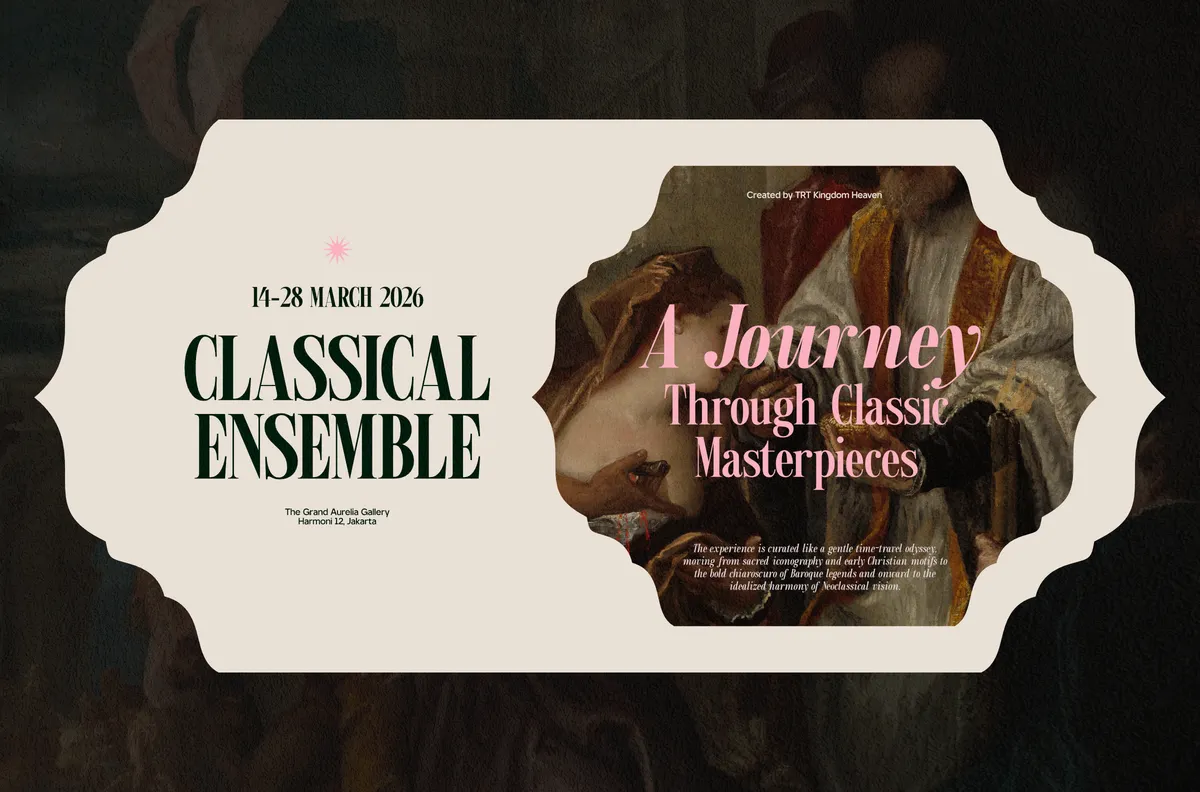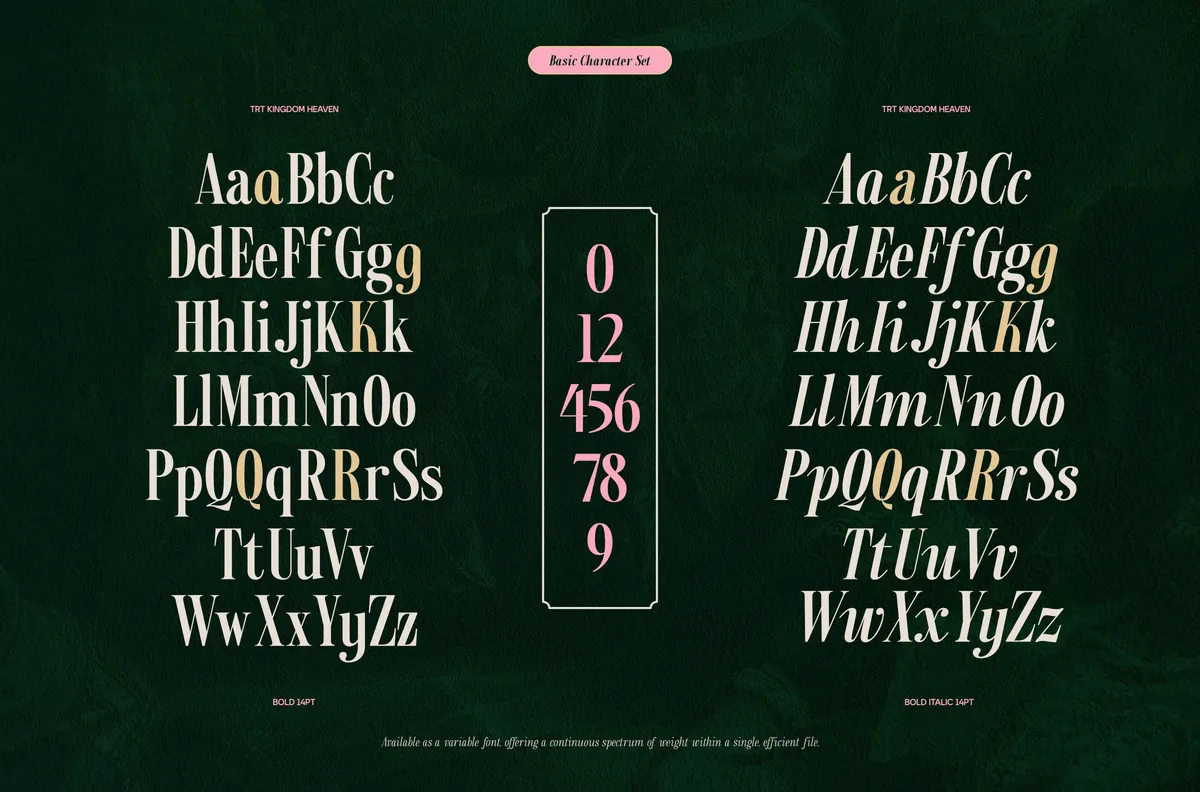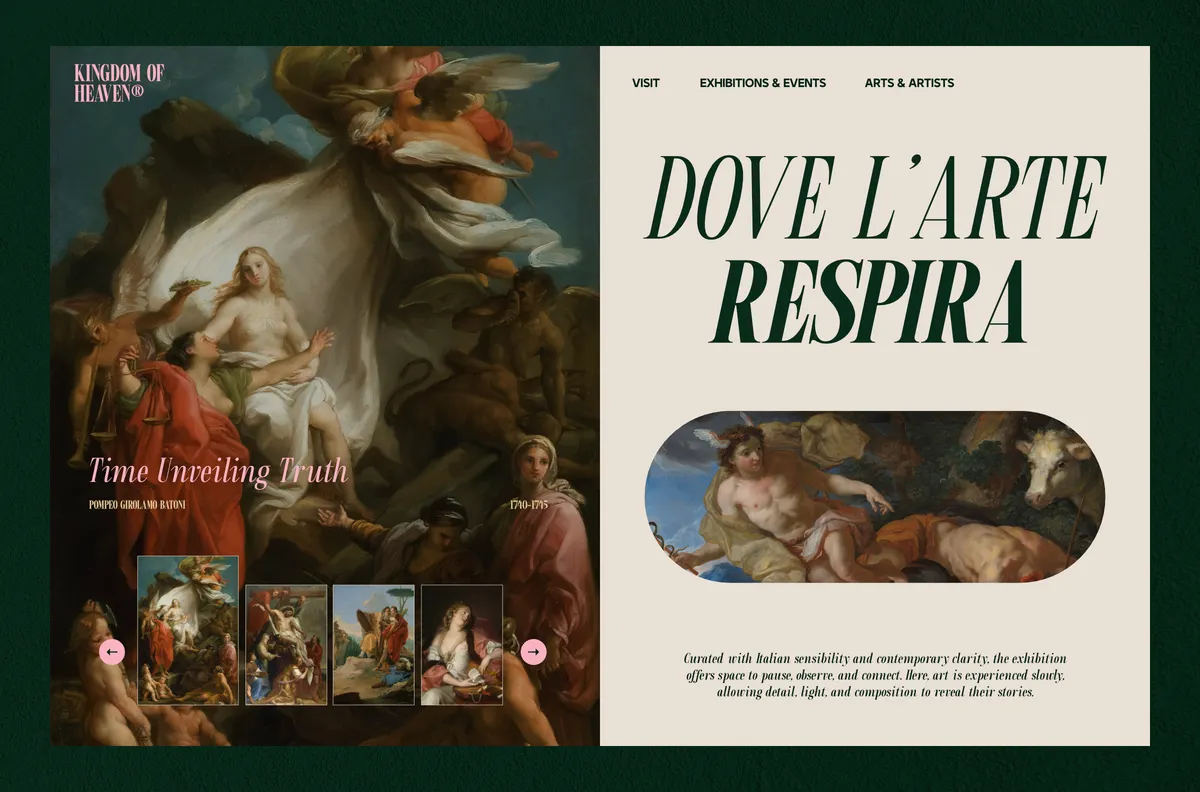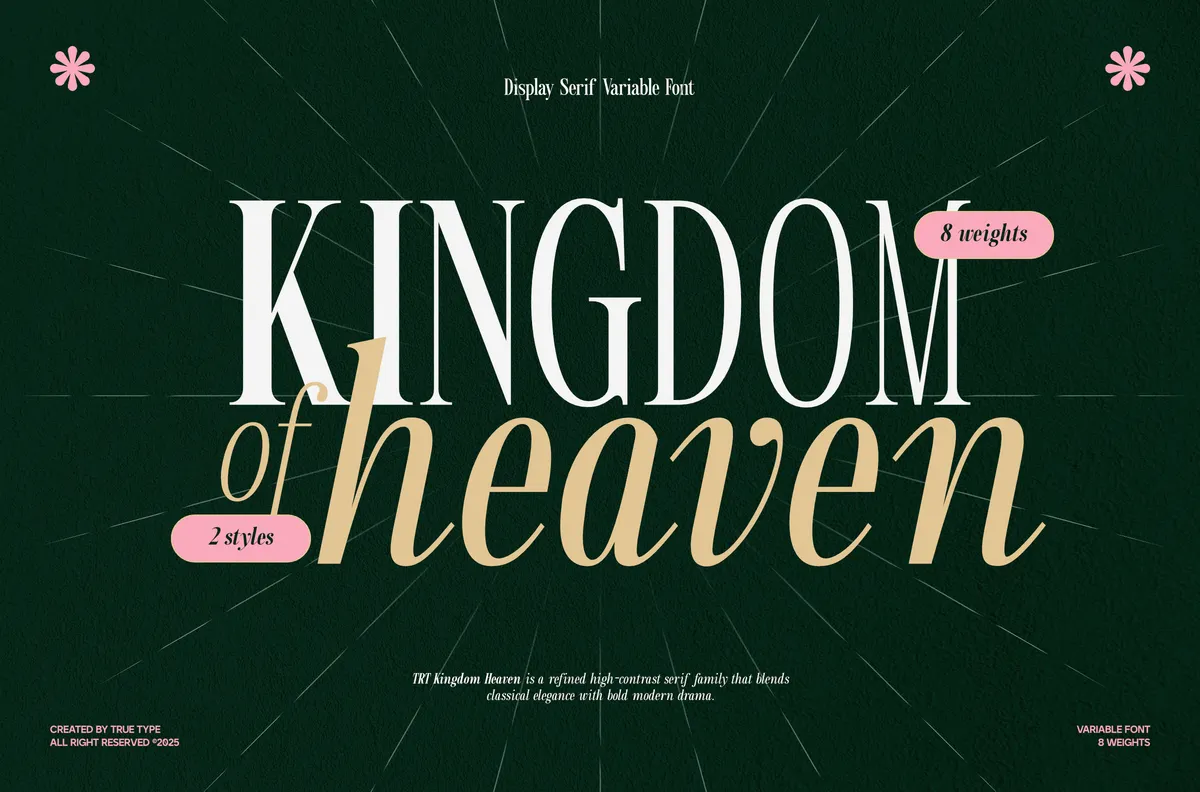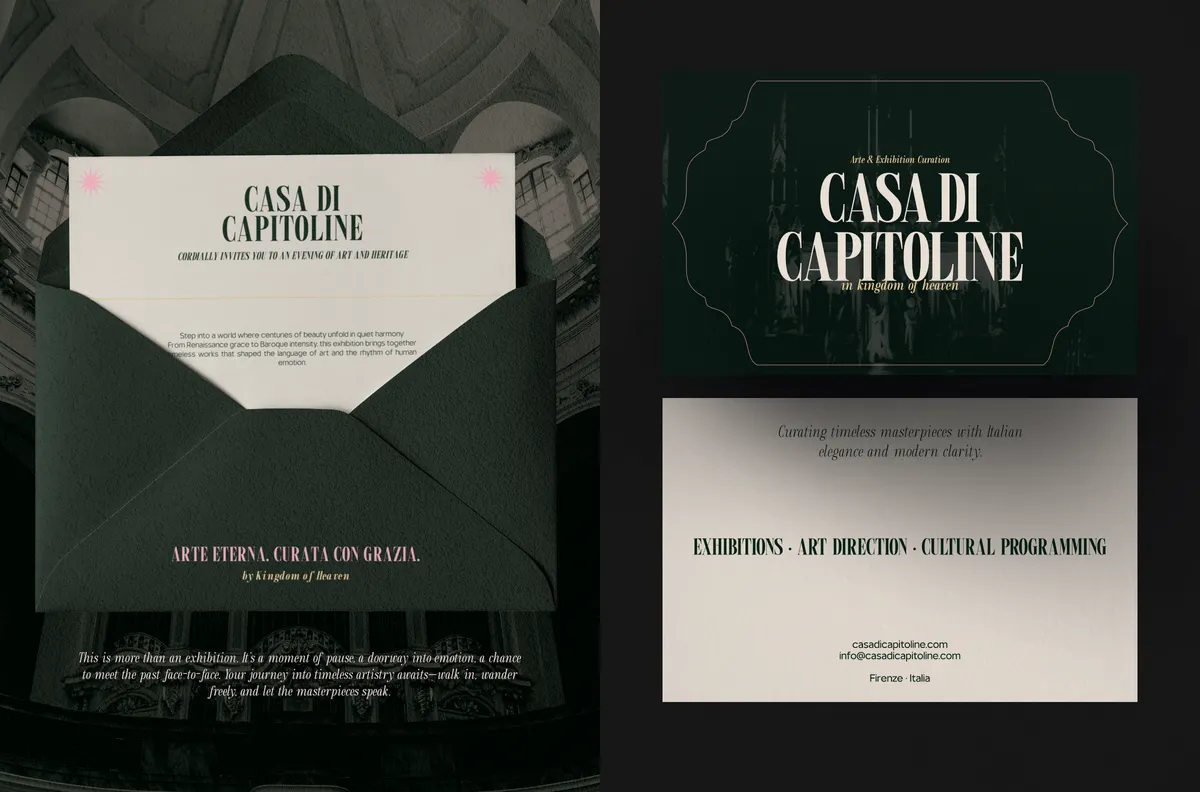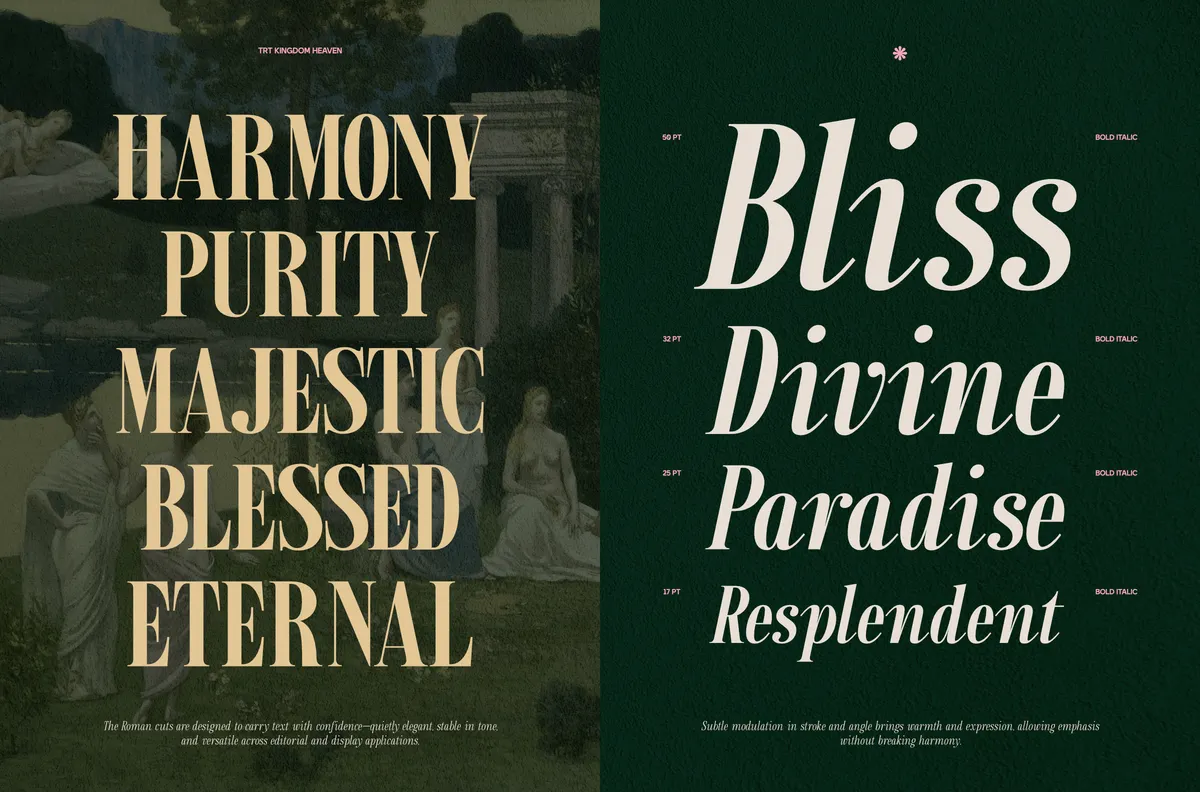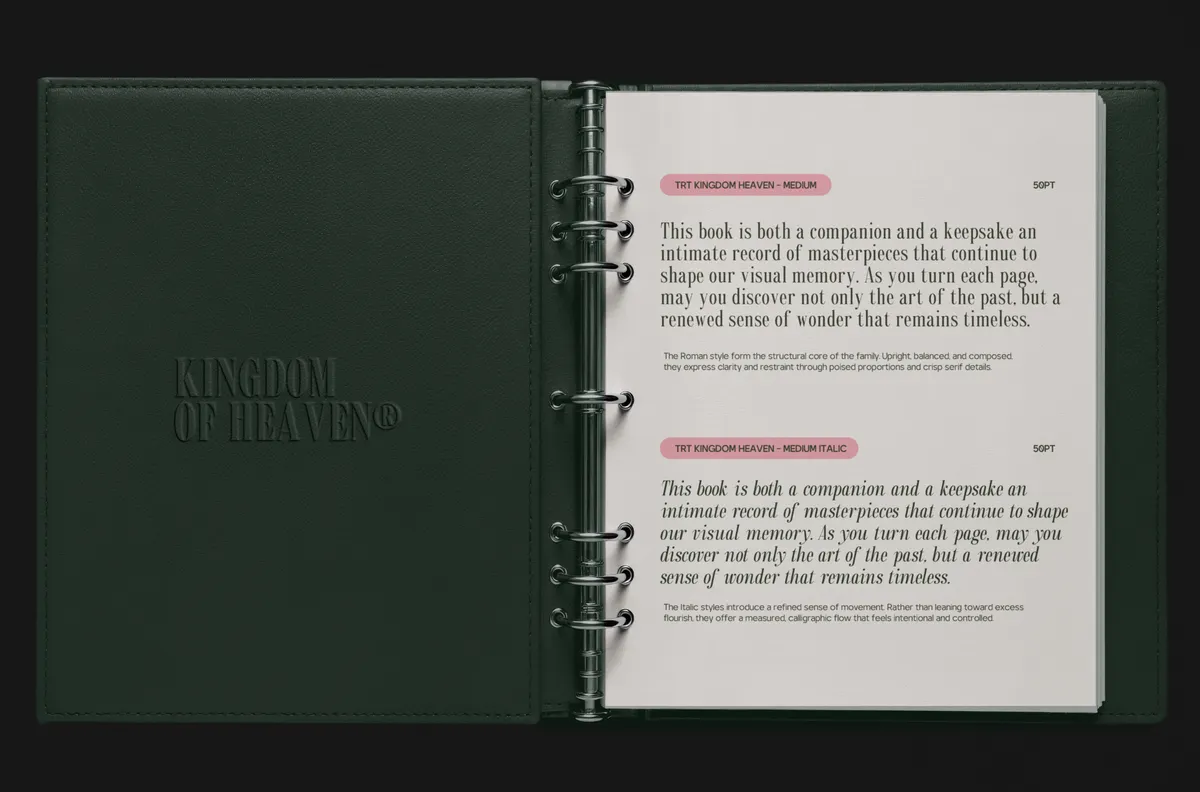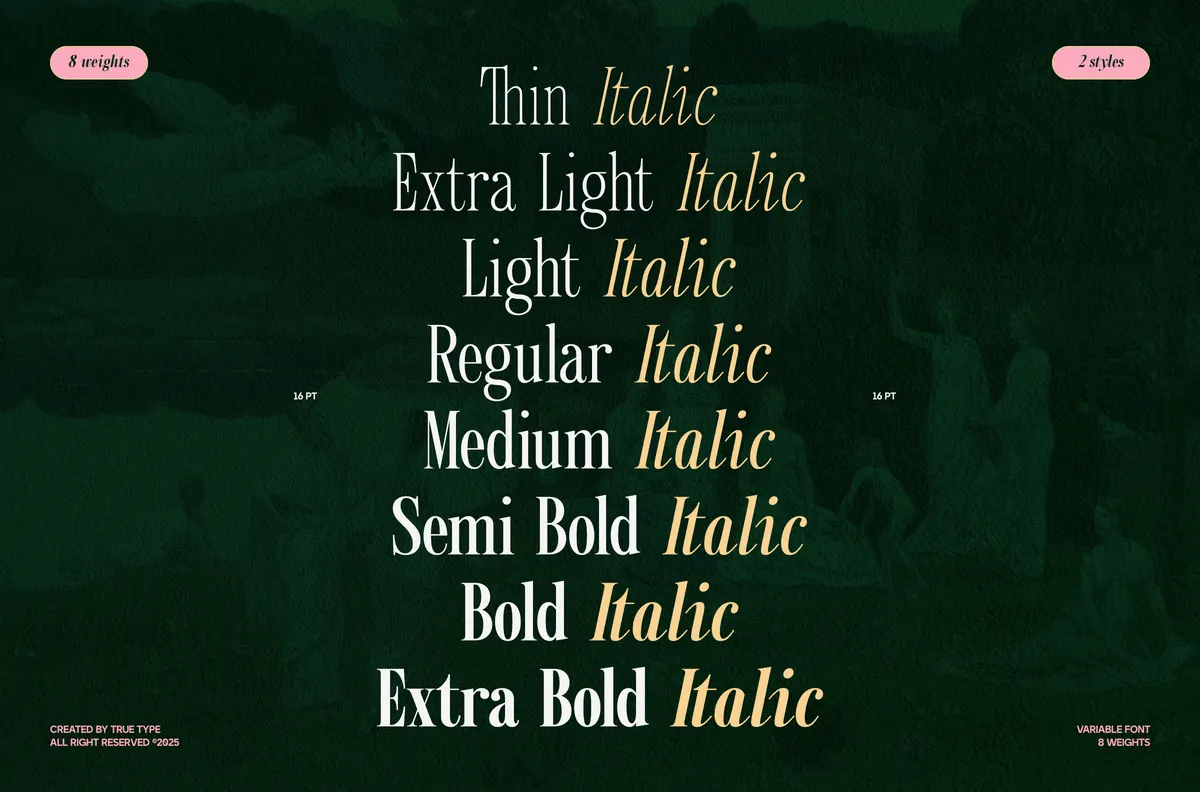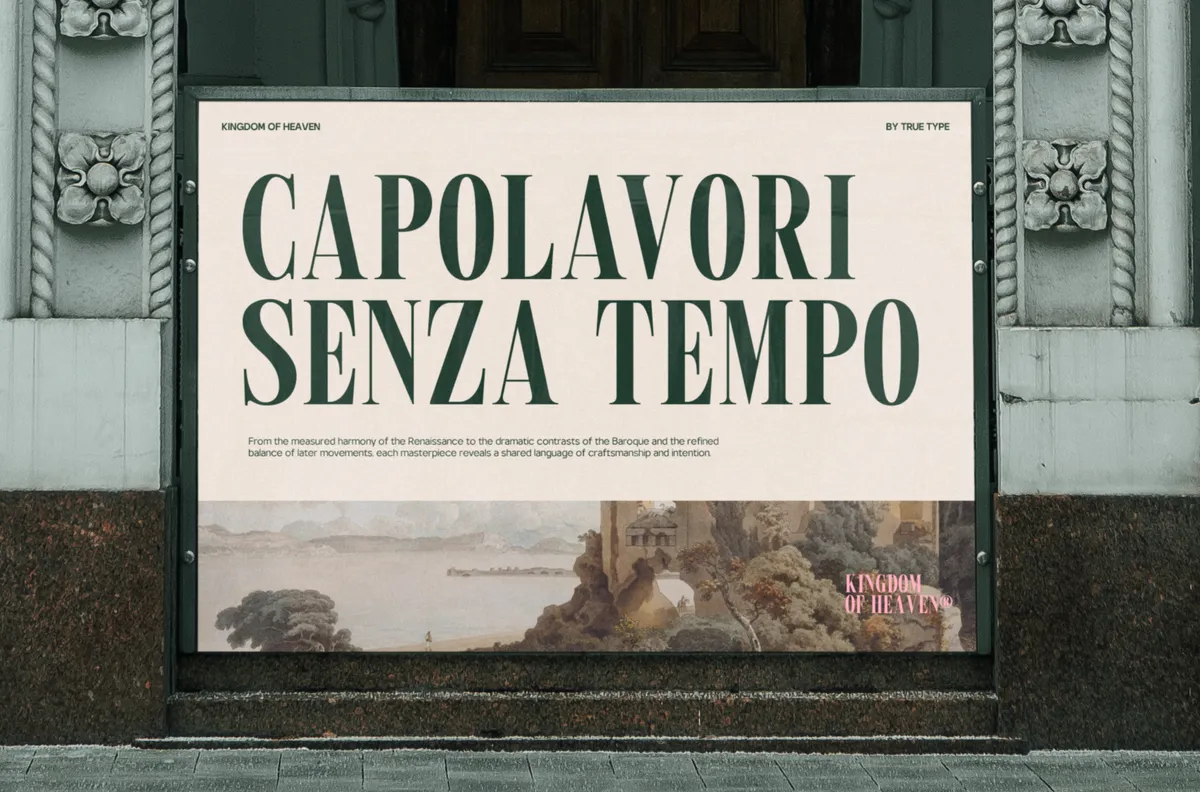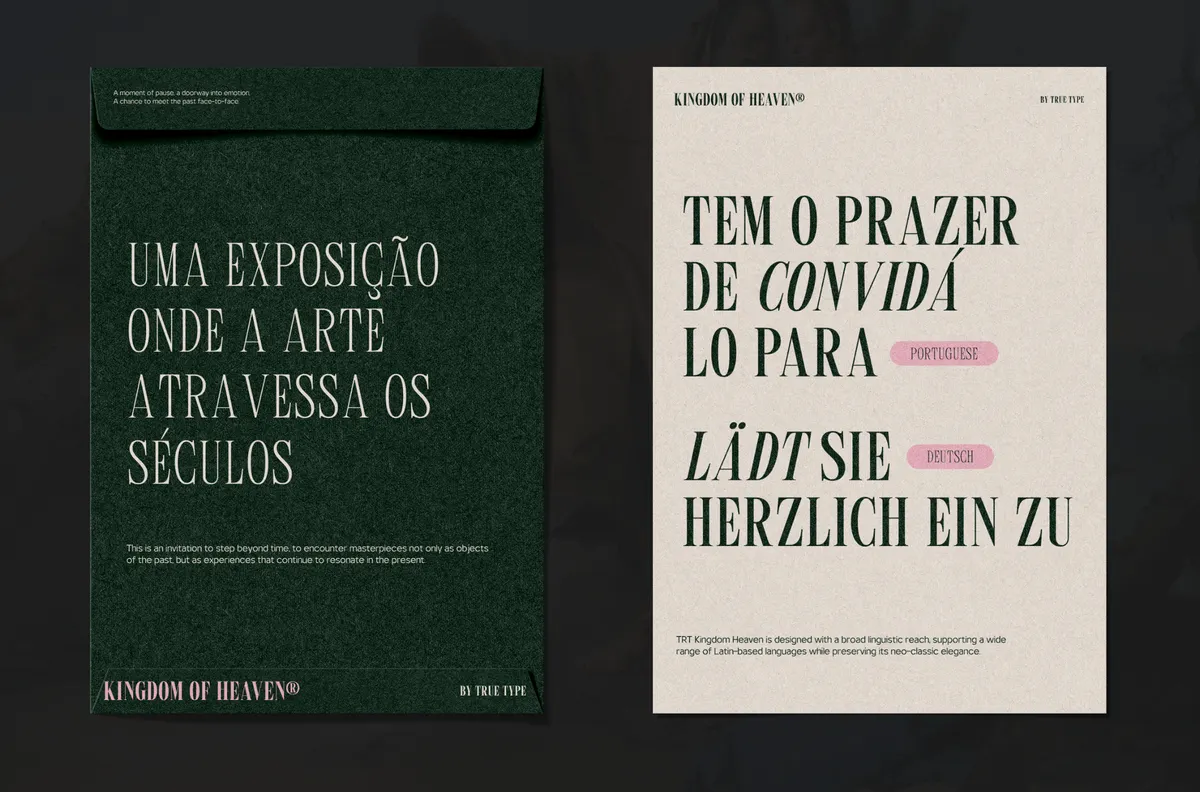
TRT Kingdom Heaven - Elegant Serif Font
Kingdom Heaven builds elegant, tall-proportioned serif capitals with a true italic companion carrying its own calligraphic swashes, not just a slanted copy of the roman. Eight weights move from a hairline Thin through a dense Extra Bold, and two variable fonts, one Roman and one Italic, carry that same range in two files.
Ligatures smooth pairs like Th, ct, and ffi, and a stylistic alternate set swaps in looped forms for G, K, Q, R, and a. Use it for branding, editorial layouts, invitations, packaging, and display typography that wants a formal, gallery-grade voice.
- 8 weights: Thin, ExtraLight, Light, Regular, Medium, SemiBold, Bold, ExtraBold, Roman and Italic;
- 2 variable fonts, one Roman, one Italic;
- Uppercase & lowercase;
- Numerals, punctuation & symbols;
- Ligatures, stylistic alternates, fractions & superscript figures;